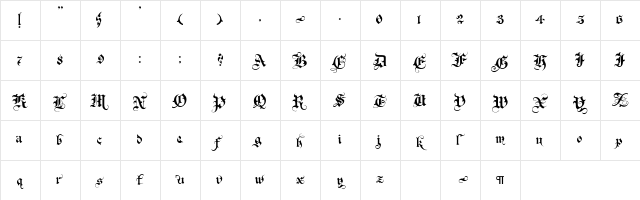
Design Context for CallifontsE44PostScript
CallifontsE44PostScript flows with the natural rhythm of handwritten lettering, making it ideal for designs that call for warmth and personal expression.
Font Pairing: Combine CallifontsE44PostScript with a simple geometric sans for maximum contrast - the tension between flowing curves and clean structure is a classic typographic pairing.
Pro Tip: Use CallifontsE44PostScript for short runs of text - names, titles, or taglines. Extended body copy in script faces tires the eye quickly.